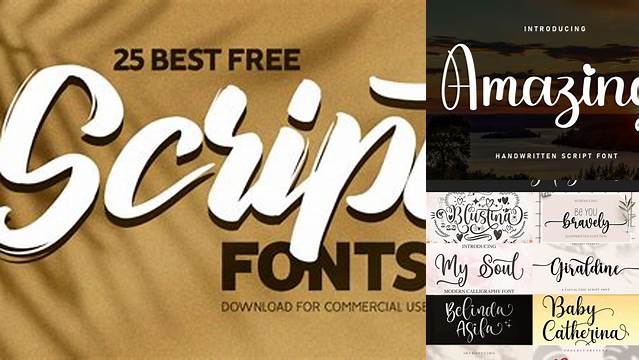
Download Amazing Script Fonts For Free
Hey guys! Are you on the hunt for some killer script fonts? You've come to the right place! Finding the perfect font can totally transform your design, adding a touch of elegance, personality, or even a bit of that handwritten charm. Whether you're working on a personal project, sprucing up your blog, or creating designs for a client, a great script font can make all the difference. And the best part? You don't have to break the bank to get your hands on some beautiful ones! There are tons of script font free options out there, ready to be downloaded and used. In this article, we'll dive deep into the world of script fonts, exploring what makes them special, where to find the best free ones, and how to use them effectively in your designs. Get ready to unleash your creativity and elevate your projects with the magic of script fonts! Let's get started and discover how you can script font free of charge.
1. What Makes Script Fonts So Special?
Script fonts, guys, are like the superheroes of the typography world. They're designed to mimic handwriting, giving your text a personal and often elegant touch. Think of them as the fonts that bring warmth and a human feel to your designs. They can range from the super formal and calligraphic to the more casual and playful, offering a wide variety of styles to suit any project. Script fonts are typically characterized by their flowing strokes, connected letters, and the overall impression of being written by hand. This unique quality makes them incredibly versatile, perfect for adding a touch of sophistication to wedding invitations, creating eye-catching headlines, or giving your brand a distinct personality. They're not just for aesthetics either. Script fonts can also evoke specific emotions and associations. A delicate, flowing script might suggest romance or elegance, while a bold, modern script could communicate confidence and approachability. It's all about choosing the right font to align with your message and target audience. When you're selecting a script font, consider its readability, especially in larger blocks of text. While some script fonts are designed for display purposes and work beautifully as headlines or titles, others are specifically designed to maintain readability even in body text. This is an important consideration if you're planning to use a script font for more than just a few words. The world of script fonts is vast and varied, offering endless possibilities for designers of all levels. Whether you're a seasoned pro or just starting out, exploring the different styles and applications of script fonts is a fun and rewarding experience. By understanding what makes these fonts special and how to use them effectively, you can elevate your designs and make them truly stand out.
2. The Different Styles of Script Fonts
Let's dive into the awesome world of script fonts and explore the different styles you can find. It's like having a wardrobe full of amazing outfits for your text! Knowing the different styles will help you pick the perfect script font for your project, whether it's a logo, invitation, or website design. First up, we have the formal scripts. These are the ones that ooze elegance and sophistication. Think classic calligraphy with beautifully connected letters, perfect for weddings, formal events, or anything that needs a touch of class. They're usually characterized by their thin strokes and graceful curves. Next, we have the casual scripts. These are more relaxed and friendly, mimicking handwriting that feels natural and approachable. They're perfect for adding a personal touch to your designs, like for blogs, social media graphics, or even product packaging. They often have a slightly more playful feel than the formal scripts. Then there are the brush scripts. These are inspired by brush strokes, with thick and thin lines, giving them a dynamic and artistic look. They can be both modern and vintage, great for creating a bold statement in your designs, such as for posters or branding. They often have a textured look, adding depth and personality. Another category includes handwritten scripts. These fonts aim to replicate actual handwriting styles, offering a realistic and personal touch. They're super versatile and can be used in various projects. They're perfect for adding a genuine, human feel to your design. Finally, there are modern scripts. These are contemporary and stylish, often with unique letterforms and a clean look. These are perfect for creating a modern and trendy look in your designs, such as for websites, logos, and fashion-related projects. Each style has its own distinct personality and is suitable for different types of projects. Understanding the differences allows you to choose the right script font that matches the tone and message of your design. Whether you're going for elegance, playfulness, or a modern edge, there's a script font out there that's perfect for you.